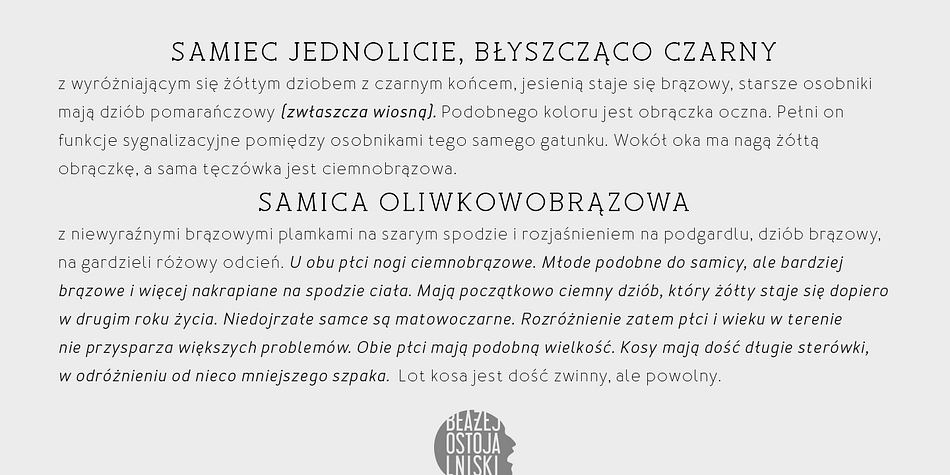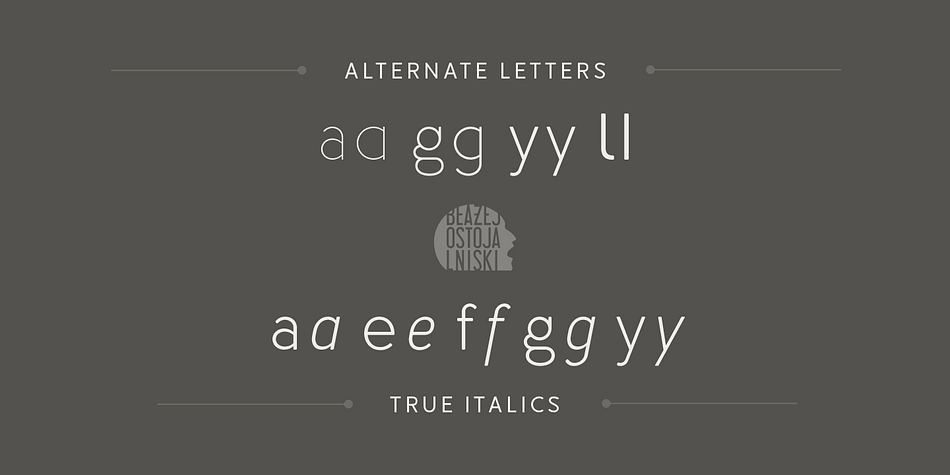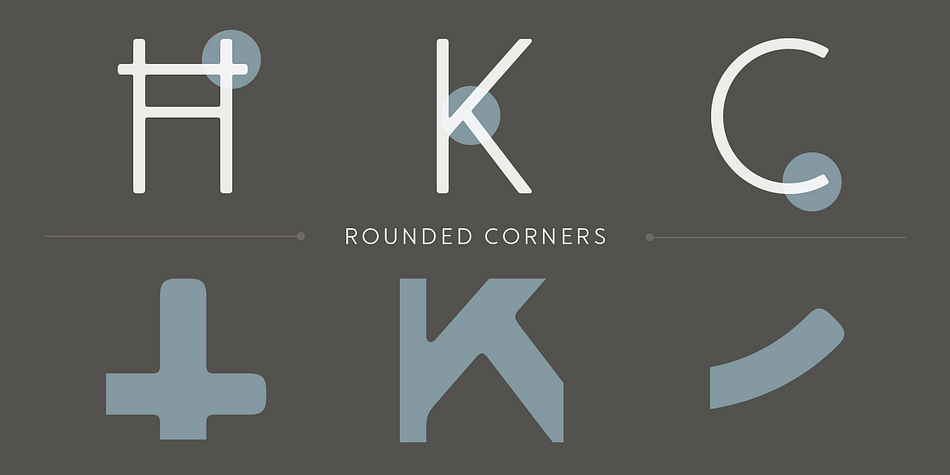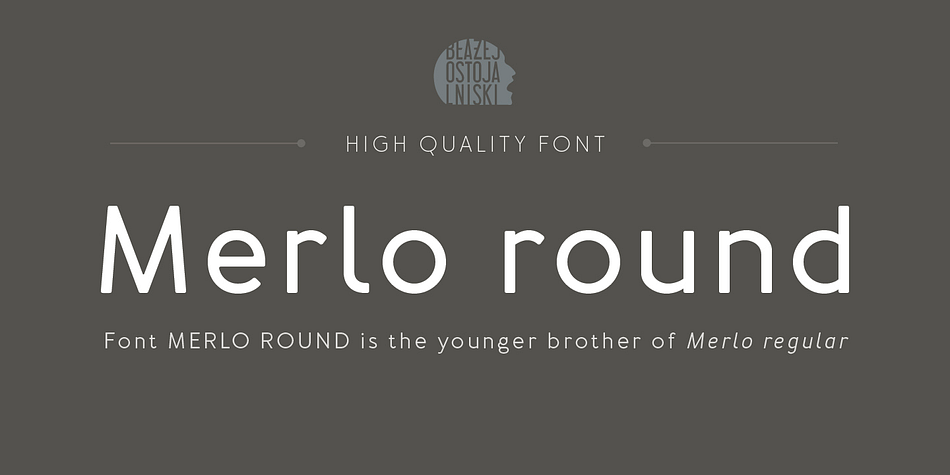
Merlo Round is a sans serif and display serif font family. This typeface has twelve styles and was published by Typoforge Studio.
Merlo Round is the younger brother of Merlo, and is inspired by a You And Me Monthly published by National Magazines Publisher RSW „Prasa” that appeared from May 1960 till December 1973 in Poland.
It includes twelve weights in upper and lower case.